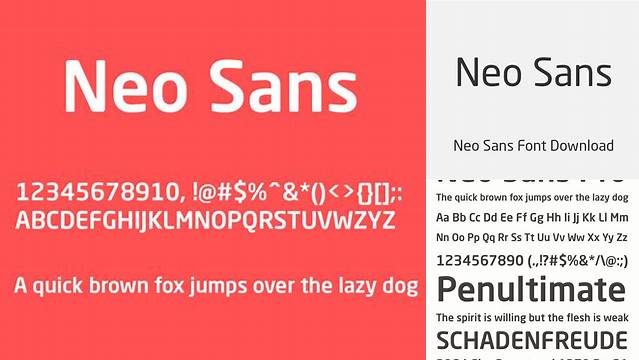
Hey guys! Are you on the hunt for a sleek, modern font that's both readable and stylish? Look no further! Today, we're diving deep into the world of Neo Sans Font and how you can snag a free download to elevate your design game. This comprehensive guide will walk you through everything you need to know, from the font's history and characteristics to where you can safely and legally download it. We'll also explore some fantastic alternatives and provide tips on using Neo Sans effectively in your projects. So, buckle up, because we're about to embark on a font-tastic journey!
H2: Unveiling the Elegance of Neo Sans Font: A Detailed Overview
Neo Sans Font, created by the renowned Monotype foundry, is a geometric sans-serif typeface that exudes a contemporary and clean aesthetic. This font family, designed by Sebastian Lester, is a versatile choice, popular for its legibility and adaptability across various design applications. The design philosophy behind Neo Sans revolves around simplicity and clarity. Its clean lines, open counters, and balanced proportions make it exceptionally readable, even at smaller sizes. This characteristic makes it a perfect selection for both body text and headlines. The font's neutral design allows it to blend seamlessly into diverse design contexts, from website layouts to corporate branding materials. One of the striking features of Neo Sans is its extensive character set, which includes numerous weights and styles, enabling designers to achieve nuanced typographic hierarchy and visual interest. The font offers a wide range of weights, from thin and light to bold and black, along with italic versions, providing ample flexibility to cater to different design requirements. The careful consideration of the details like the rounded terminals, uniform stroke widths, and the subtle curves in letterforms contributes to the font's overall harmony and visual appeal. Additionally, Neo Sans includes a comprehensive set of special characters and symbols, making it a complete typographic solution for multilingual projects, guaranteeing that the font can successfully communicate across cultures and languages. This combination of design quality, versatility, and user-friendliness has made Neo Sans a staple in the design world, with many brands and designers incorporating it into their core visual identity.
As we delve deeper into the design characteristics of Neo Sans, we find that the attention to detail is what really sets it apart. The consistent stroke widths in the design lead to a sense of visual balance and stability, making it perfect for extended reading. The rounded terminals, a defining characteristic of many sans-serif fonts, are executed beautifully in Neo Sans. They provide a touch of softness and approachability, while maintaining its overall contemporary appearance. The open counters in characters such as 'a', 'e', and 'o' improve readability, and the large x-height further enhances readability, particularly in smaller sizes. The typeface's geometric foundation is evident in the uniformity of the letterforms, with each character carefully constructed to maintain consistency and visual coherence. The careful design of the italic styles adds a layer of sophistication and design interest. The slant of the italic variants complements the upright versions, creating an elegant contrast. Each weight and style available in the Neo Sans family is carefully designed to work harmoniously with the others, enabling designers to create a cohesive visual hierarchy. The meticulous design process is not just about aesthetics; it's about ensuring functionality and user experience. By balancing visual appeal and readability, Neo Sans achieves both style and practicality. The design is made with a commitment to the principles of modern typography. The result is a typeface that is both beautiful and functional, making it an outstanding choice for all kinds of design requirements.
Finally, the versatility of Neo Sans extends beyond its aesthetics. It's not only suitable for a wide range of applications but is also highly adaptable to different media and formats. Whether you're designing a website, a print advertisement, or a mobile app, Neo Sans consistently performs well. This versatility makes it a preferred selection for modern designers. Furthermore, its character set supports various languages, reinforcing its global appeal. The font's ability to be used universally is an important feature for anyone working on international projects. As we explore the design and capabilities, it becomes clear that Neo Sans is more than just a font; it's a powerful design tool that helps designers make a strong impact. Its balance of elegance, readability, and versatility means that designers can rely on it to realize their creative visions. The features mentioned together demonstrate that Neo Sans is designed to meet the high demands of modern design, which makes it a reliable and timeless font choice.
H2: The History and Evolution of Neo Sans: From Conception to Popularity
Let's go back in time a little, shall we? Neo Sans Font didn't just magically appear; it has a rich history that helped it evolve to the modern, well-loved typeface it is today. Designed by Sebastian Lester, Neo Sans was released by Monotype, a company known for its long-standing history of creating high-quality typefaces. The font was born from the desire to create a modern, clean, and highly readable sans-serif font. Its development process was focused on crafting a typeface that was both visually appealing and functionally versatile, fitting a broad variety of design applications. The primary objective was to create a font that would serve as a reliable, contemporary alternative to some of the more traditional typefaces. This vision guided the design decisions, from its fundamental geometric forms to its subtle curves and open counters. This careful attention to detail contributed to its enduring popularity. From its initial design concept to its final release, every aspect of Neo Sans was designed with precision and design in mind. The designer, Sebastian Lester, brought his experience and knowledge to the project, ensuring that the result would meet the requirements of modern designers. The design process included extensive testing and refinement to ensure that the font would not only look good but also perform effectively in different settings.
The key to understanding the evolution of Neo Sans lies in the design's focus on blending form and function. The designer and the team at Monotype worked hard to create a font that would appeal to both aesthetic sensibilities and practical needs. The design team concentrated on creating a versatile font that could be used for both headlines and body text, with the intention of making it a go-to choice for designers across various platforms. The initial design included a limited set of weights and styles, but the creators continued to evolve the font family by introducing different weights, from ultra-light to bold, and included italic versions to increase design versatility. These expansions broadened the font's usability and adaptability, making it more useful for designers with different requirements. The design and continuous updates reflected the evolving demands of the design world. The font's design was carefully adapted and expanded over time to stay up-to-date with industry trends. The gradual inclusion of more characters, including special characters and symbols, further enriched the font family, making it an all-encompassing typographic solution. This evolutionary approach highlights Monotype's commitment to creating a typeface that can meet the changing demands of design and technology. The continuous refinements and updates reflect the ongoing dedication to quality and user satisfaction.
Its popularity surged with the rise of digital design and the need for clean, modern typefaces. Neo Sans quickly became a favorite among designers and brands looking for a sleek and versatile option. Its adaptability to various design contexts, from websites to printed materials, was one of the most significant factors in its success. The font's clean aesthetics and high readability, especially at smaller sizes, made it suitable for both display and text. The font's neutral appearance helped it to integrate into a variety of design schemes. The typeface's adaptability to various applications was also an important factor in its adoption by major brands and organizations. Its consistent presence in both print and digital media solidified its position in the design industry. The font's ability to support multiple languages made it a globally accepted choice, further boosting its popularity. Its lasting impression is proof of its excellent design and the creative vision that brought it to life. Its continuous use in the design field is a testimony to its durability and impact on the design industry. The ongoing recognition and use in various creative projects demonstrate its continuing impact and appeal.